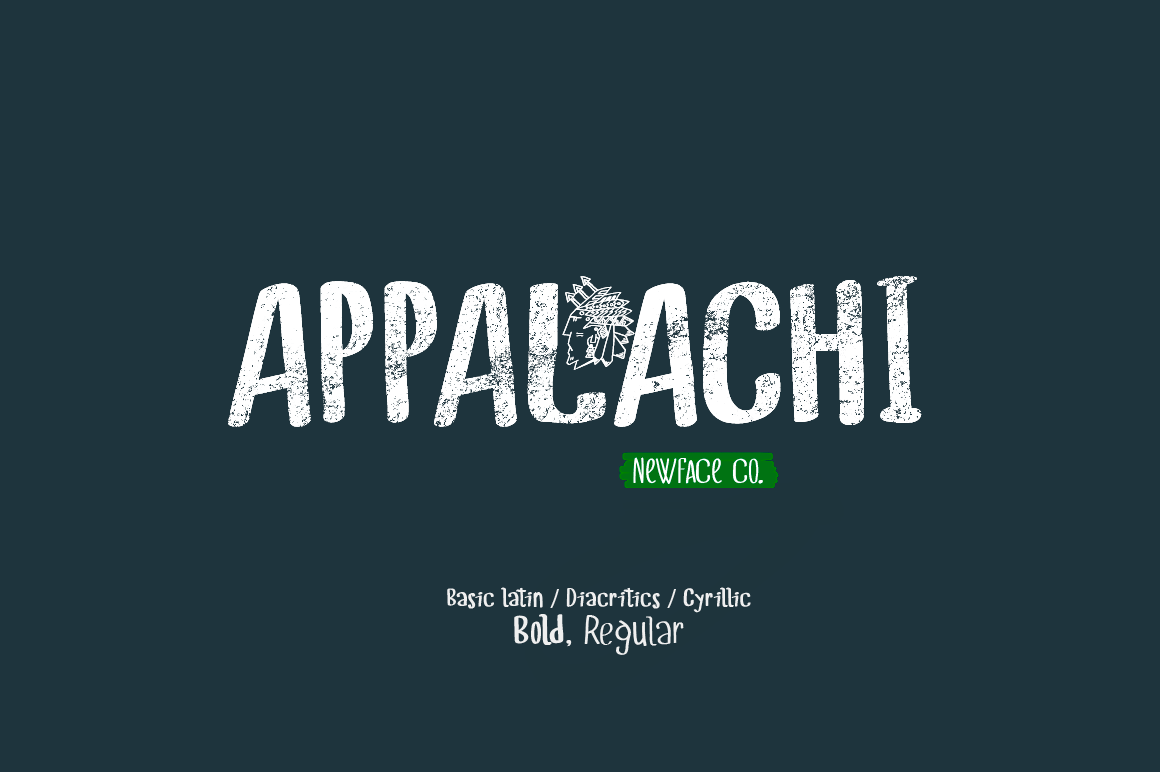
Appalachi Typeface Duo
Introducing Appalachi Typeface! Original handlettering typface. Regular & Bold. Over 1500 kerning pairs. With some nice ligatures.
Language support: Contains full set of Latin alphabet, including diacritical marks for European languages and Cyrillic alphabets.